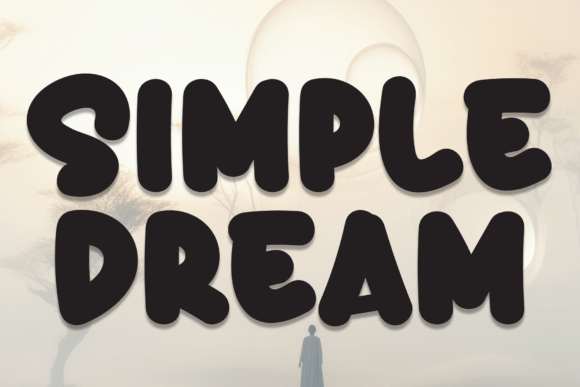
Introducing Simple Dream Font: The Ultimate Choice for Bold and Modern Designs
In the world of typography, fonts play a crucial role in conveying messages, evoking emotions, and creating a lasting impression. When it comes to making a statement, a well-crafted font can be the game-changer. This is where Simple Dream Font comes into play – a robust and stylish typeface that is designed to make your designs loud and clear. With its thick strokes, strong presence, and modern flair, Simple Dream Font is the perfect choice for headlines, posters, branding, logos, and any project that demands attention.
Key Features of Simple Dream Font
- Thick Strokes: The font features bold and thick strokes that give it a strong and sturdy appearance, making it perfect for headlines and titles.
- Strong Presence: Simple Dream Font has a commanding presence that demands attention, making it ideal for posters, branding, and logos.
- Modern Flair: The font’s modern design ensures that your designs look fresh and contemporary, perfect for projects that require a modern touch.
Ideal Design Applications for Simple Dream Font
Simple Dream Font is a versatile typeface that can be used in a variety of design applications. Here are some of the ideal uses for this font:
- Headlines: The font’s bold and thick strokes make it perfect for headlines, ensuring that your message grabs attention.
- Posters: Simple Dream Font is designed to make a statement, making it ideal for posters that require a strong visual impact.
- Branding: The font’s modern flair and strong presence make it perfect for branding projects that require a contemporary and bold look.
- Logos: Simple Dream Font can be used to create memorable and impactful logos that leave a lasting impression.
- Editorial Layouts: The font’s stylish and modern design makes it perfect for editorial layouts that require a standout look.
Design Tips for Using Simple Dream Font
To get the most out of Simple Dream Font, here are some design tips to keep in mind:
- Use it for emphasis: Simple Dream Font is designed to make a statement, so use it to emphasize important information or to draw attention to a particular element.
- Pair it with a simple font: To create visual interest, pair Simple Dream Font with a simple and clean font for body text.
- Experiment with colors: The font’s bold design makes it perfect for experimenting with different colors and gradients.
- Keep it simple: While Simple Dream Font is designed to make a statement, it’s essential to keep your design simple and uncluttered to ensure that the font remains the focal point.
Benefits of Using Simple Dream Font
Simple Dream Font offers a range of benefits that make it an ideal choice for designers and businesses. Here are some of the advantages of using this font:
- High impact: The font’s bold and thick strokes ensure that your designs have a high impact, grabbing attention and leaving a lasting impression.
- Effortless style: Simple Dream Font delivers high impact with effortless style, making it perfect for designers who want to create stunning designs without spending hours agonizing over typography.
- Versatility: The font’s versatility makes it perfect for a range of design applications, from headlines and posters to branding and logos.
- Modern look: Simple Dream Font’s modern design ensures that your designs look fresh and contemporary, perfect for businesses and designers who want to stay ahead of the curve.
How Simple Dream Font Compares to Other Fonts
When it comes to choosing a font for your design project, there are many options available. Here’s how Simple Dream Font compares to other fonts:
- Unique design: Simple Dream Font has a unique design that sets it apart from other fonts, making it perfect for designers who want to create distinctive and memorable designs.
- Bold and modern: The font’s bold and modern design makes it perfect for projects that require a strong visual impact, setting it apart from more traditional fonts.
- Easy to read: Despite its bold design, Simple Dream Font is easy to read, making it perfect for projects that require a font that is both stylish and legible.
What Designers Say About Simple Dream Font
Don’t just take our word for it – here’s what designers and businesses have to say about Simple Dream Font:
Simple Dream Font has been a game-changer for our design projects. Its bold and modern design makes it perfect for creating stunning headlines and posters.
John Doe, Designer
We were blown away by the versatility of Simple Dream Font. It’s perfect for our branding and logo designs, and the font’s easy to read and understand.
Jane Smith, Marketing Manager
In conclusion, Simple Dream Font is a powerful and stylish typeface that is perfect for designers and businesses who want to create bold and modern designs. With its thick strokes, strong presence, and modern flair, this font is ideal for headlines, posters, branding, logos, and any project that needs to be loud and clear. Whether you’re creating promotional materials or a standout editorial layout, Simple Dream Font delivers high impact with effortless style.